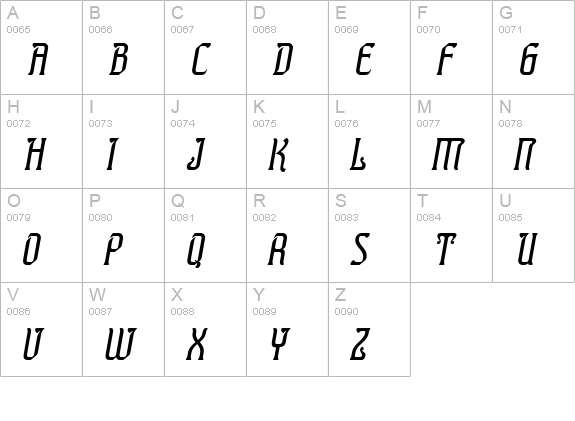
Presidente Tequila Italic Font Details
Presidente Tequila Italic is a distinctive, italic variant in the Presidente typeface family \xE2\x80\x94 well suited to design and typography projects.
Presidente Tequila Italic font is a stylish and elegant typeface that exudes sophistication and charm. With its sleek and slanted design, this font is perfect for adding a touch of flair to any project or design. The italicized letters convey a sense of movement and dynamism, making Presidente Tequila Italic font ideal for capturing attention and creating a lasting impression. This exquisite font is available for free download at FontsMarket.com. Whether you're working on a branding project, website design, or any other creative endeavor, Presidente Tequila Italic font is sure to elevate your work and leave a lasting impact. Don't miss the opportunity to enhance your designs with this stunning font - download it today and see the difference it can make!